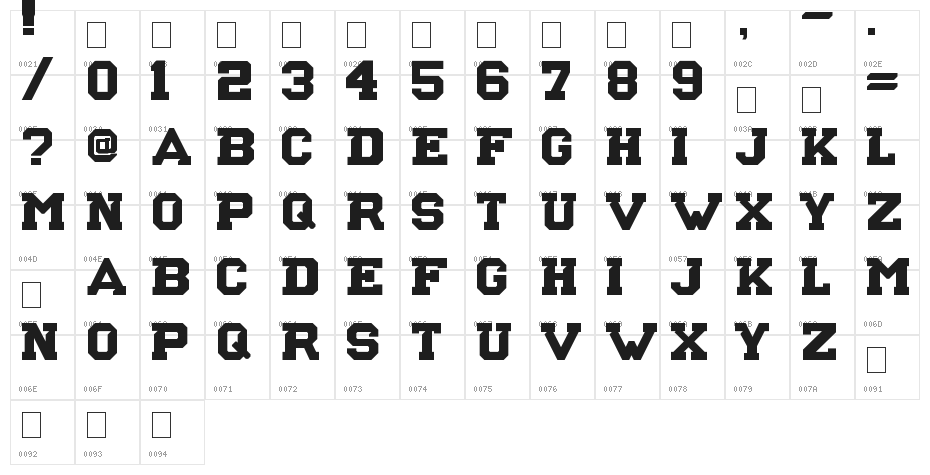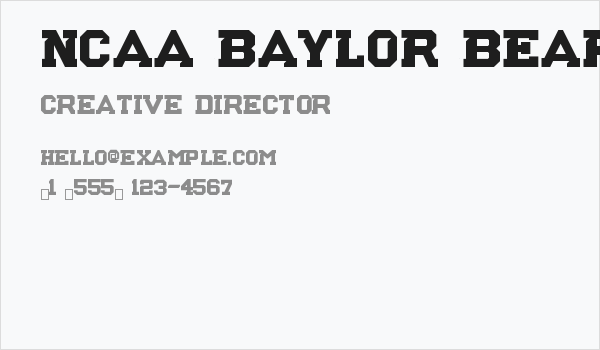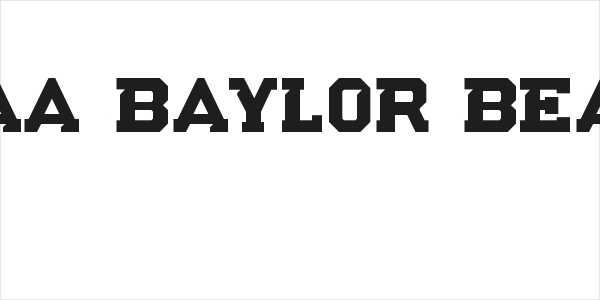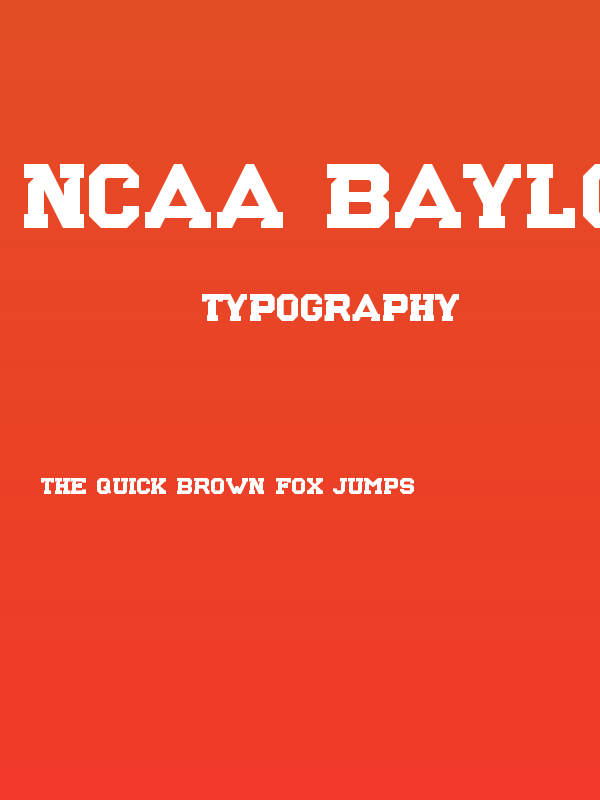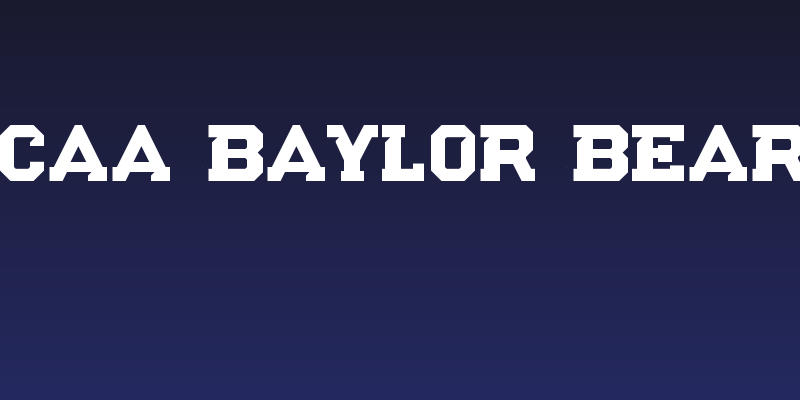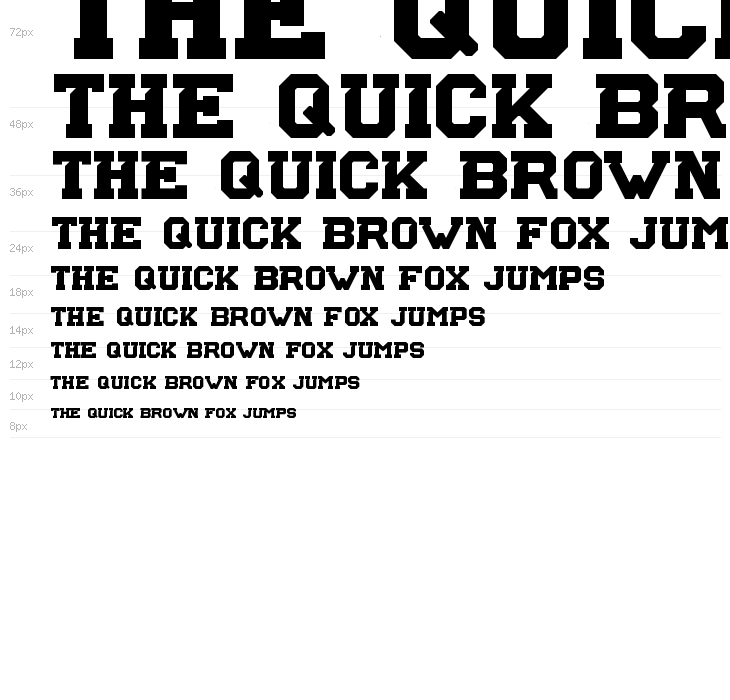
NCAA Baylor Bears Font
NCAA Baylor Bears Description
This font features a bold and robust design, characterized by thick, block-like serifs and a strong presence. The uppercase letters are uniform in height, with a consistent width that gives a sense of stability and strength. The numbers follow the same bold style, ensuring readability and impact. The font's geometric shapes and sharp angles contribute to its authoritative and collegiate feel, making it ideal for sports-related themes. The special characters maintain the same boldness, ensuring consistency across all glyphs.
| Overall Style | Collegiate, Bold |
| Use Case | Headlines, Logos, Sports Branding |
| Proposed Projects | Ideal for sports team branding, university merchandise, posters, and headlines that require a bold and authoritative presence. |